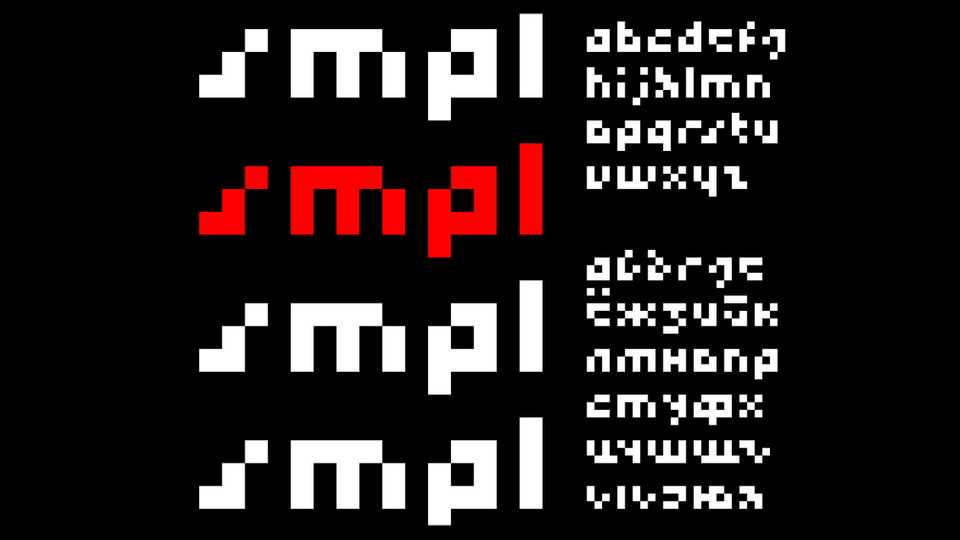
Download SMPL font, a minimalistic pixel-imitating display typeface. SMPL is perfect for posters, web design, games, illustrations and other artworks.